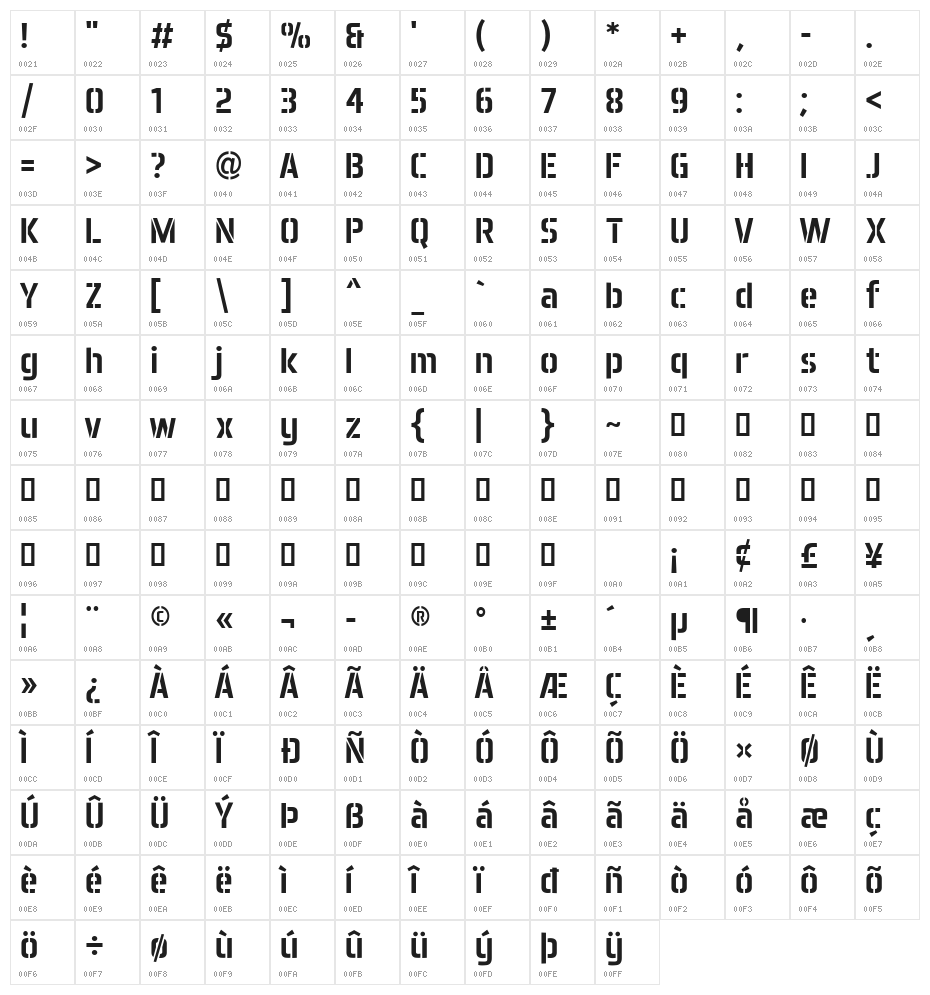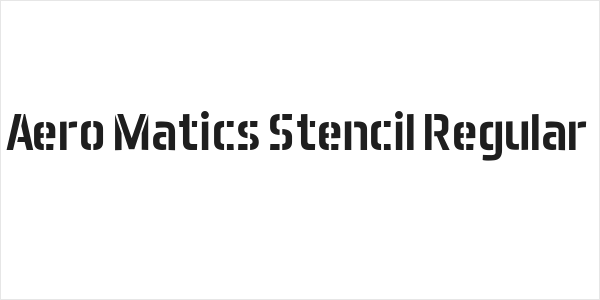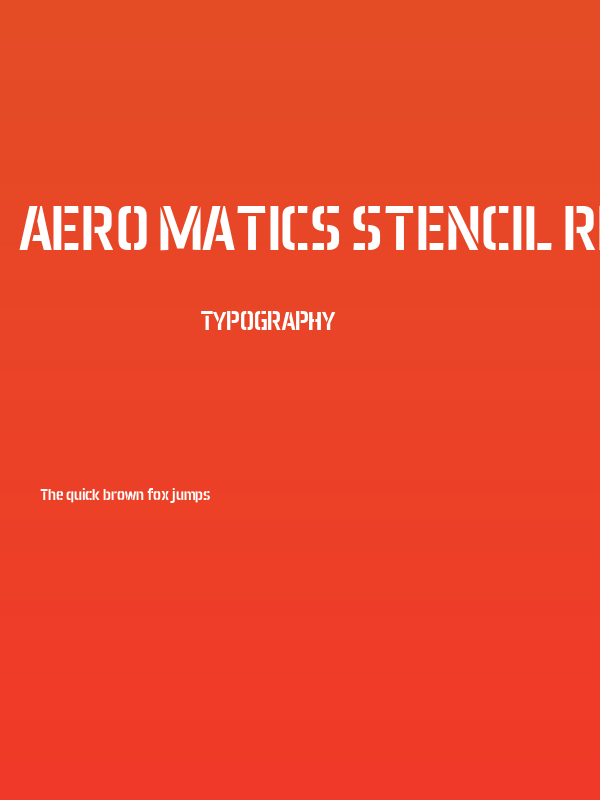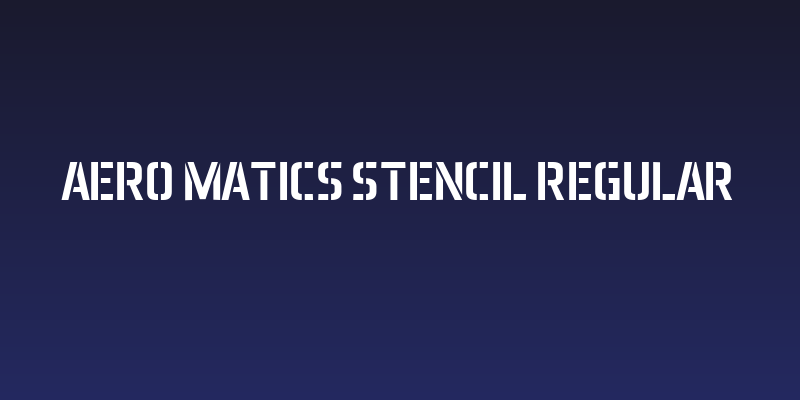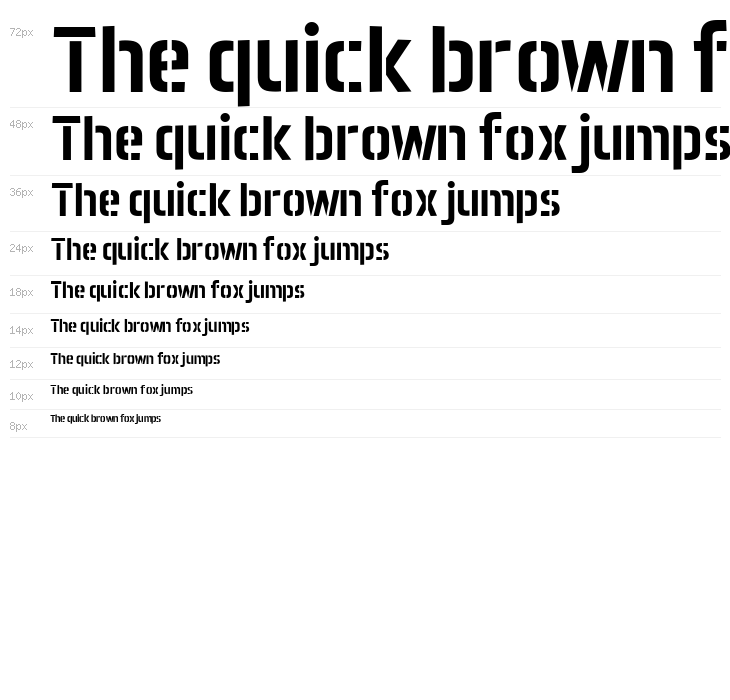
Aero Matics Stencil Regular Font
Aero Matics Stencil Regular Description
This font features a bold, geometric design with a distinct stencil style, characterized by breaks in the strokes that create a mechanical and industrial feel. The uppercase and lowercase letters maintain a consistent weight, contributing to a uniform appearance. The numerals and special characters follow the same stencil pattern, ensuring cohesion across all elements. The font's structure is robust and impactful, making it suitable for attention-grabbing applications. Its clean lines and angular shapes give it a modern edge, while the stencil gaps add a touch of uniqueness and functionality.
Use CaseHeadlines, Logos, Signage
Proposed ProjectsIdeal for branding, signage, posters, and any project requiring a strong, industrial aesthetic.